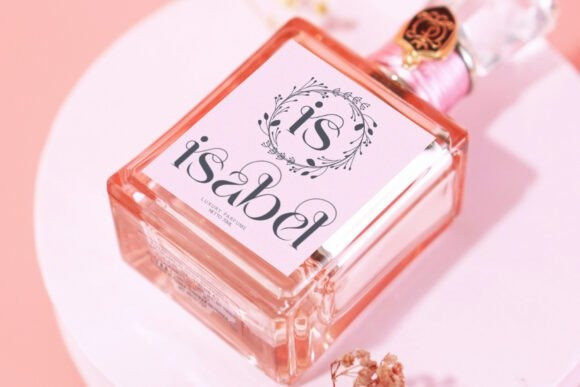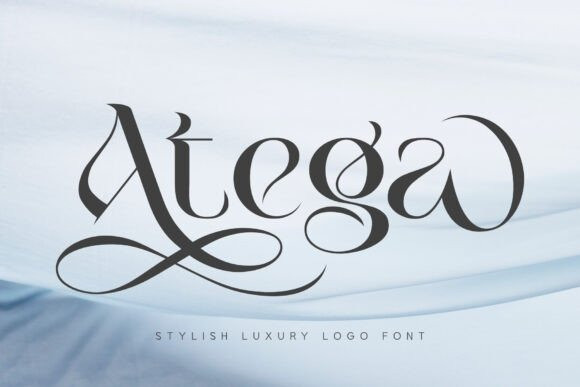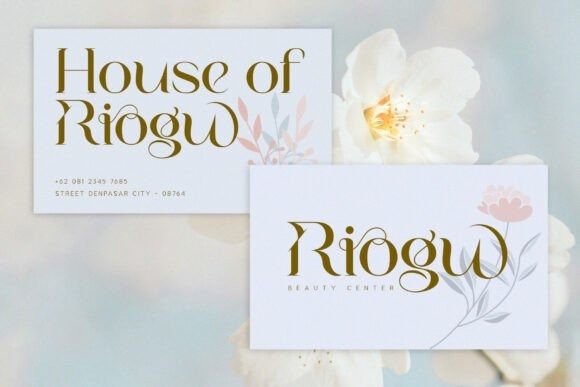
Atega Font
Atega Font, a font that embodies the essence of modern luxury and timeless elegance. Designed to enhance your brand, Atega seamlessly blends contemporary style with classic refinement, making it the perfect choice for logos and upscale branding projects.
The Story Behind Atega:
Imagine a typeface that captures the spirit of sophistication, combining modern design elements with traditional elegance. Atega was created to exude style and grace, offering a premium look that ensures your designs make a lasting impression. Each character is meticulously crafted to reflect refinement and quality, helping your creations stand out in any context.